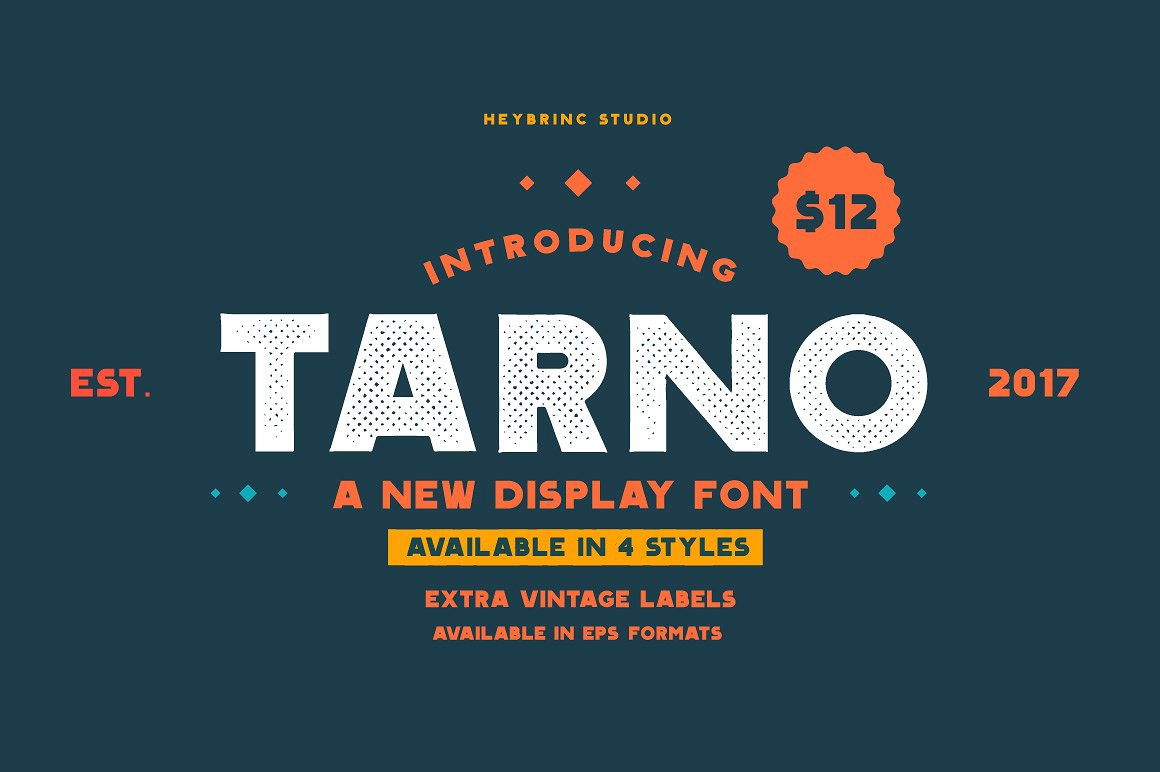
Tarno is all caps display font. It's perfect for creating outstanding headline text to your design. Available in four types. What is include in the Package?